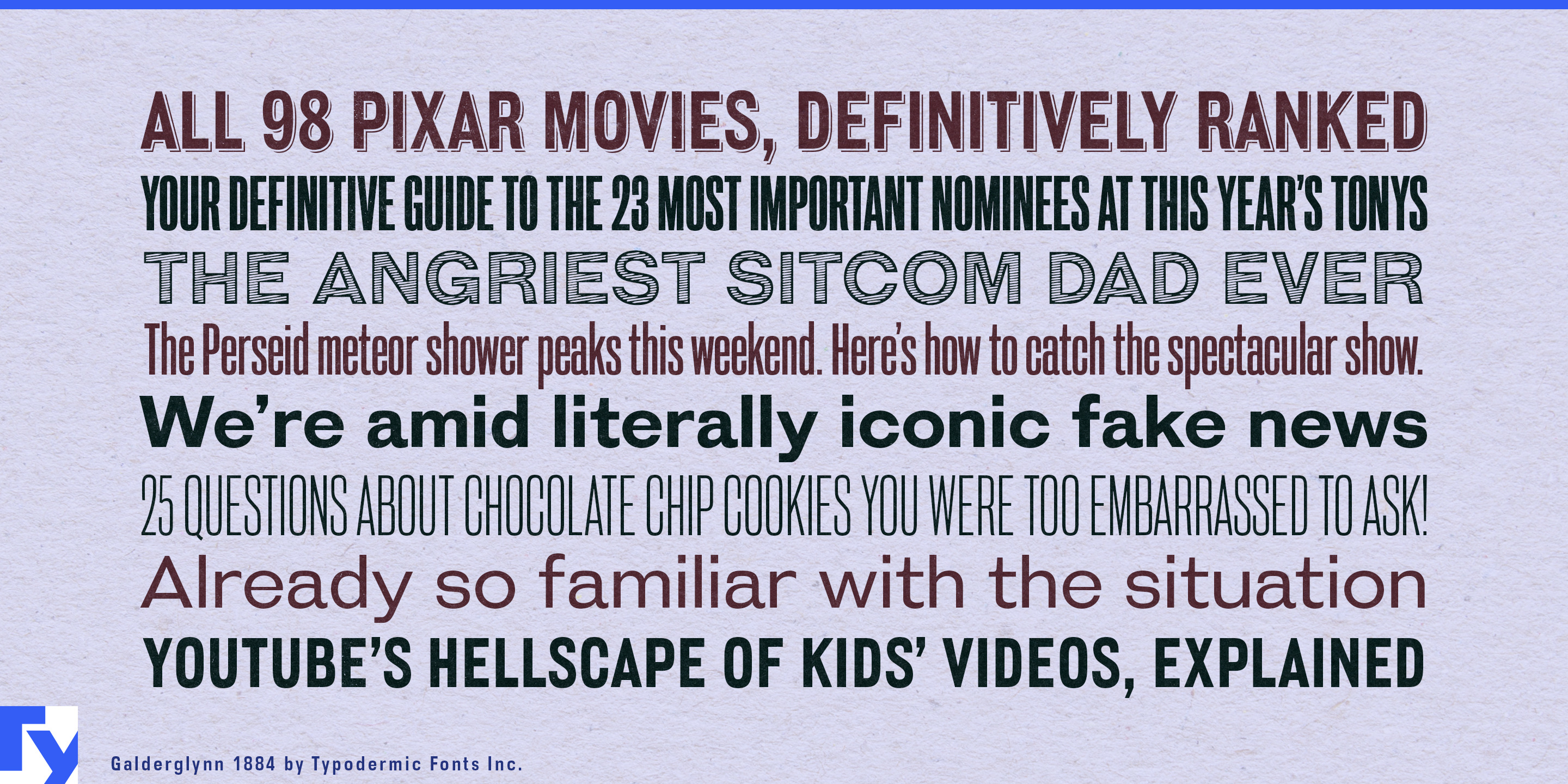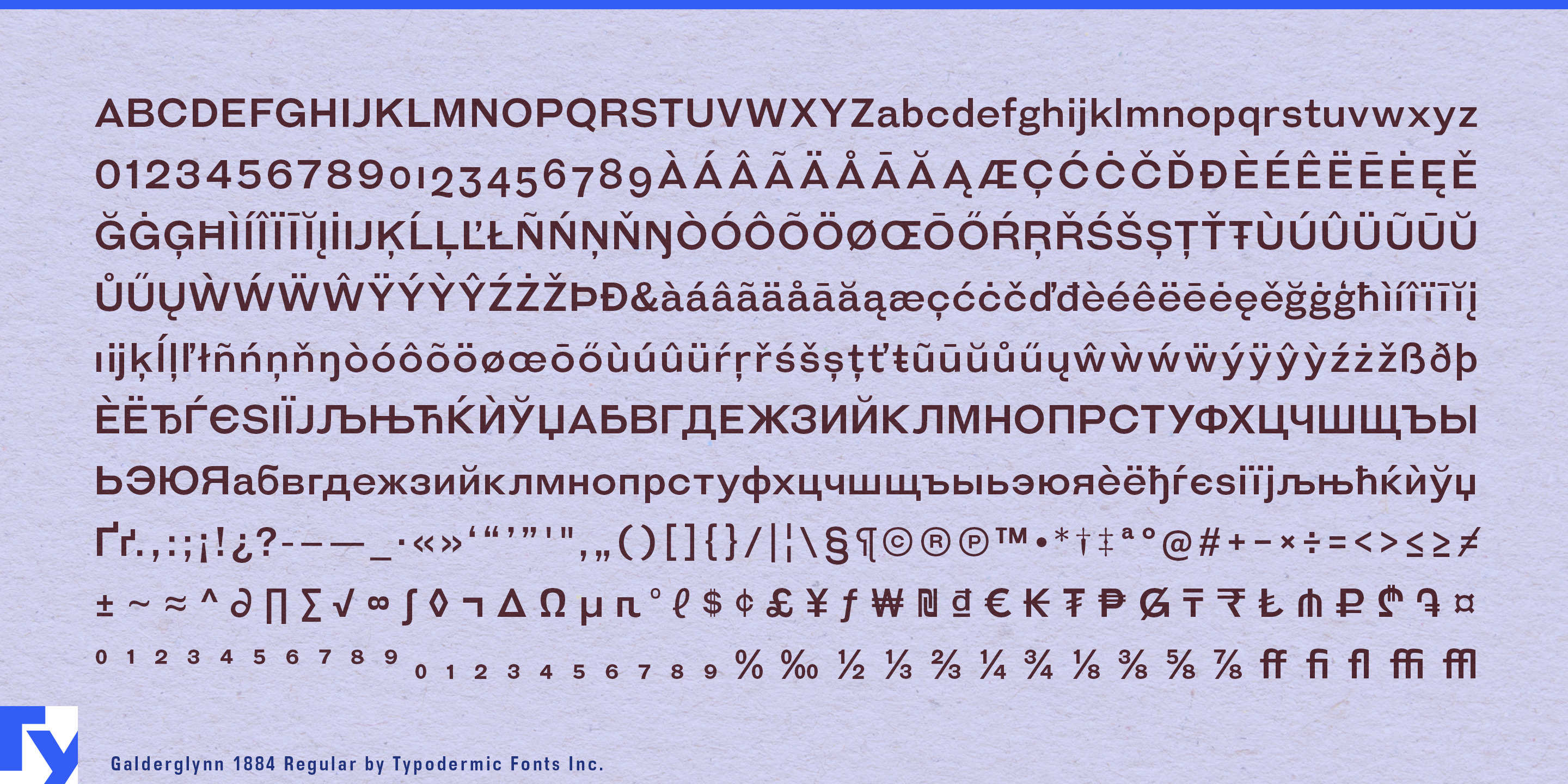
Galderglynn 1884
Galderglynn 1884 channels the authority and eccentricity of nineteenth-century grotesques into a type family built for today’s designers. Drawing on the DNA of its predecessor, Galderglynn Esquire, it trades some of the wilder mismatches for a cleaner, more disciplined voice—yet keeps enough of the pre-Akzidenz quirks to feel unmistakably authentic.
Its defining trait is the flat-sided condensed structure, a feature rarely seen in contemporary sans-serifs where widths are typically interpolated. This mechanical, deliberate build creates a commanding vertical rhythm, ideal for layouts that need to speak with authority in limited space. The extra-condensed “squeeze” styles echo wooden poster types of the 1800s, while engraved and shadow variations add the tactile depth of period signage and hand-cut lettering.
Galderglynn 1884 is at home wherever historical gravitas meets modern clarity. It’s a natural choice for beverage labels, heritage brand identities, period-inspired editorial mastheads, boutique hotel signage, historical fiction covers, or classic cinema title cards. With Latin and Cyrillic support, a full range of weights, and stylistic effects that nod to nineteenth-century craft, it offers the elegance of the past rendered with the precision of the present.